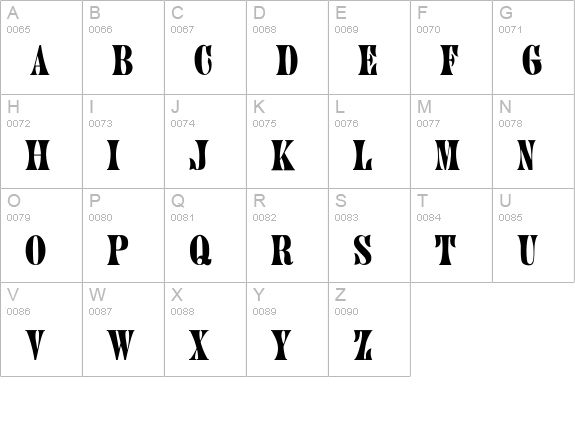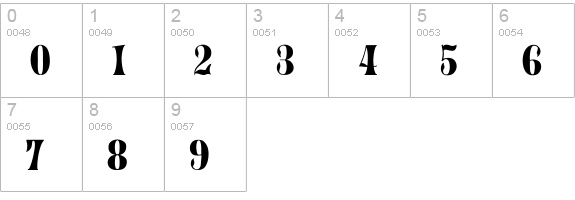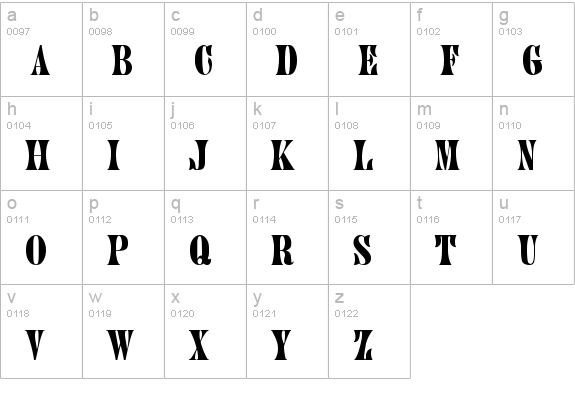
Juniper-Normal is the standard, neutral variant in the Juniper typeface family \xE2\x80\x94 well suited to general body text, paragraphs, and standard typographic work.
Juniper-Normal font is a versatile typeface that exudes elegance and sophistication. With its clean lines and modern aesthetic, this font is perfect for a wide range of design projects, from branding and advertising to web design and print materials. Its timeless appeal makes it suitable for both professional and personal use. What sets Juniper-Normal font apart is that it is available for free download at FontsMarket.com. This means that you can access this high-quality font without any cost, making it a valuable resource for designers and creatives looking to enhance their projects without breaking the bank. So why wait? Download Juniper-Normal font today and elevate your designs to the next level.